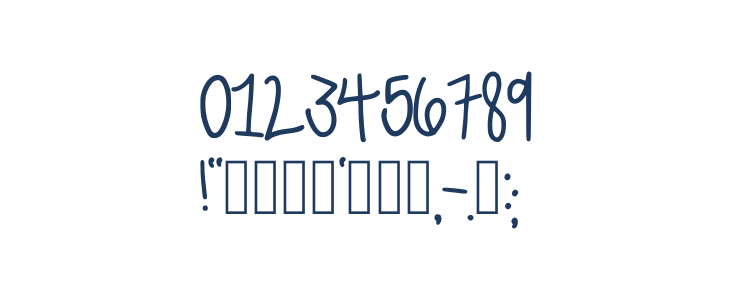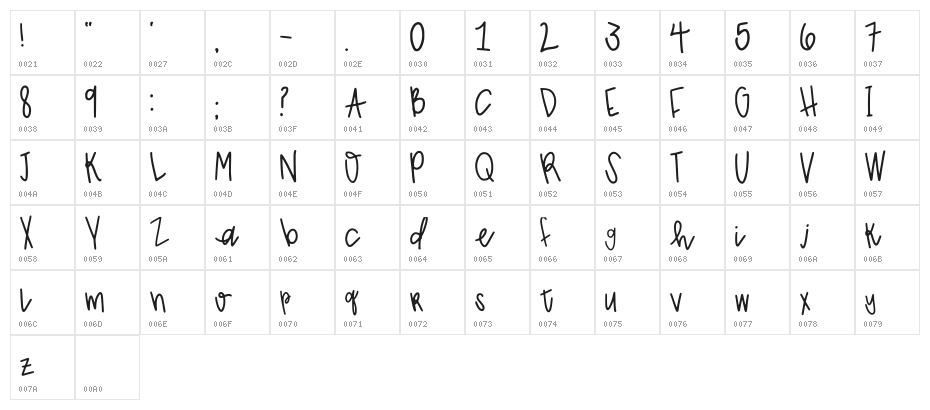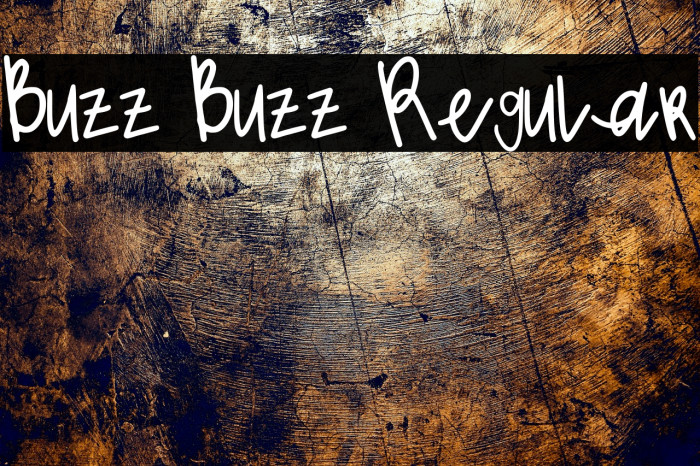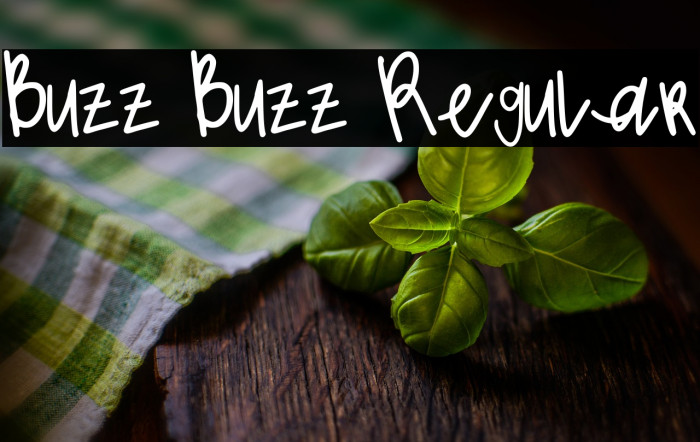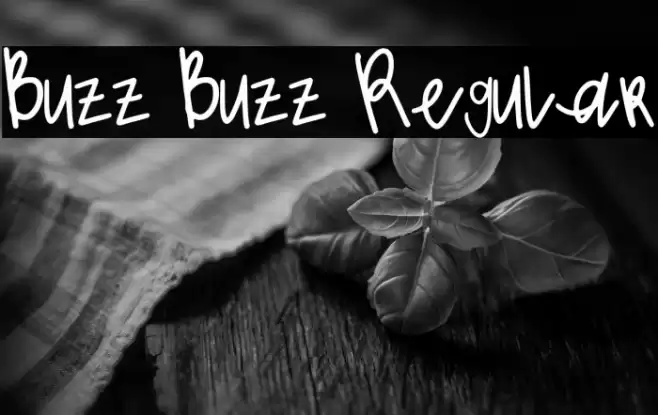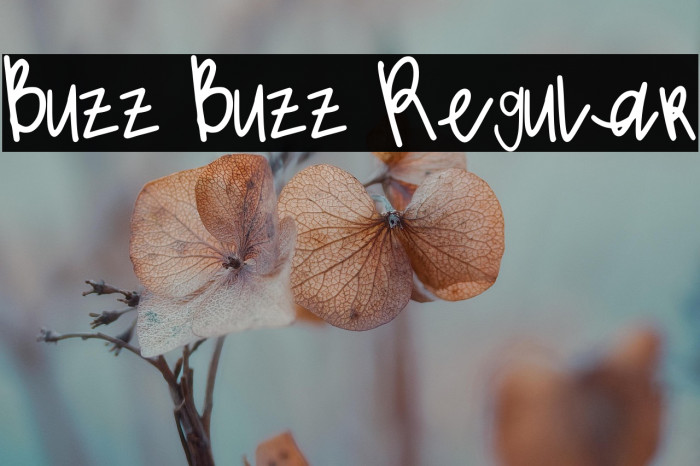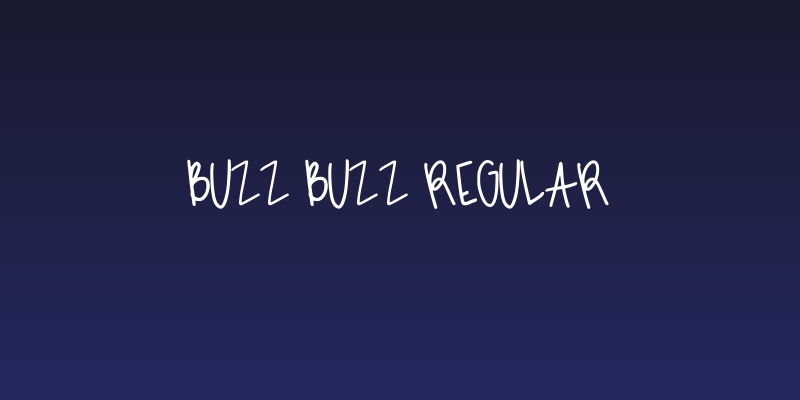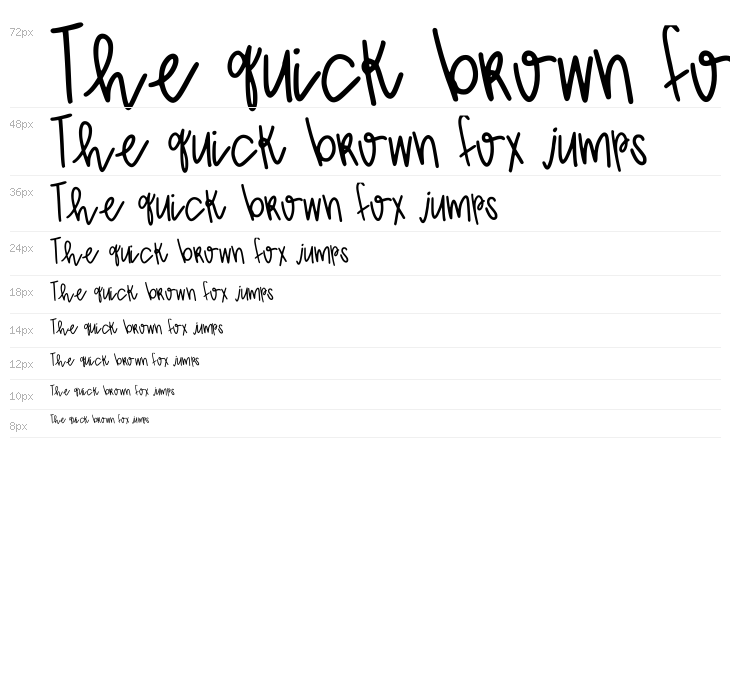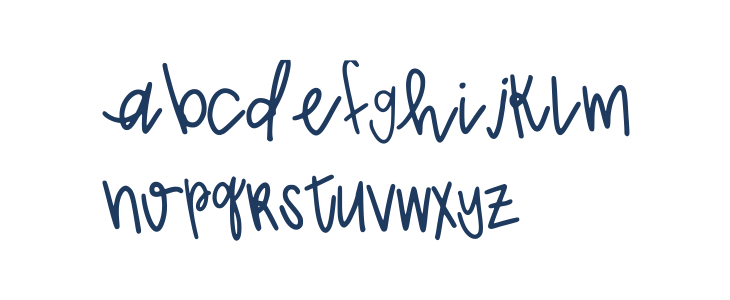
Buzz Buzz Regular Font
Buzz Buzz Regular Description
This playful and whimsical font features a handwritten style with a casual and friendly appearance. The letters are slightly irregular, giving it a personal touch that mimics natural handwriting. The strokes are consistent in thickness, providing a uniform look across all characters. The uppercase letters are bold and prominent, while the lowercase letters maintain a more relaxed and flowing form. Numbers and special characters are designed to match the overall style, ensuring cohesion throughout. This font is perfect for projects that require a touch of personality and informality.
| Use Case | Headlines, Logos, Informal text |
| Proposed Projects | Ideal for greeting cards, children's books, playful branding, and social media graphics. |